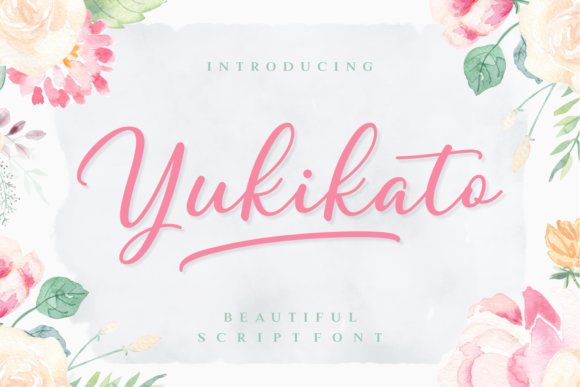
Introducing Yukikato Font - A Whimsical and Lighthearted Typeface for Charming Designs
Step into the world of Yukikato Font, a captivating script font that exudes sweetness and innocence. Crafted by the talented Keithzo (7NTypes), Yukikato is an enchanting creation that will add a dash of whimsy to your design projects.
With Yukikato, you can effortlessly infuse a feminine touch into your designs. Its delicate strokes and graceful curves evoke a sense of elegance and charm. Whether you're creating logos, invitations, or social media graphics, Yukikato will elevate your work with its irresistible charm.
One of the standout features of Yukikato Font is its collection of delightful swashes. These elegant embellishments add an extra layer of creativity and personality to your designs. Use them to highlight special words or phrases, or to create eye-catching headlines that will capture your audience's attention.
Yukikato's versatility shines through its compatibility with a wide range of design styles. Its sweet and playful nature makes it perfect for projects aimed at children, such as storybooks, educational materials, and party invitations. It also adds a touch of whimsy to branding and packaging designs, creating a sense of nostalgia and warmth.